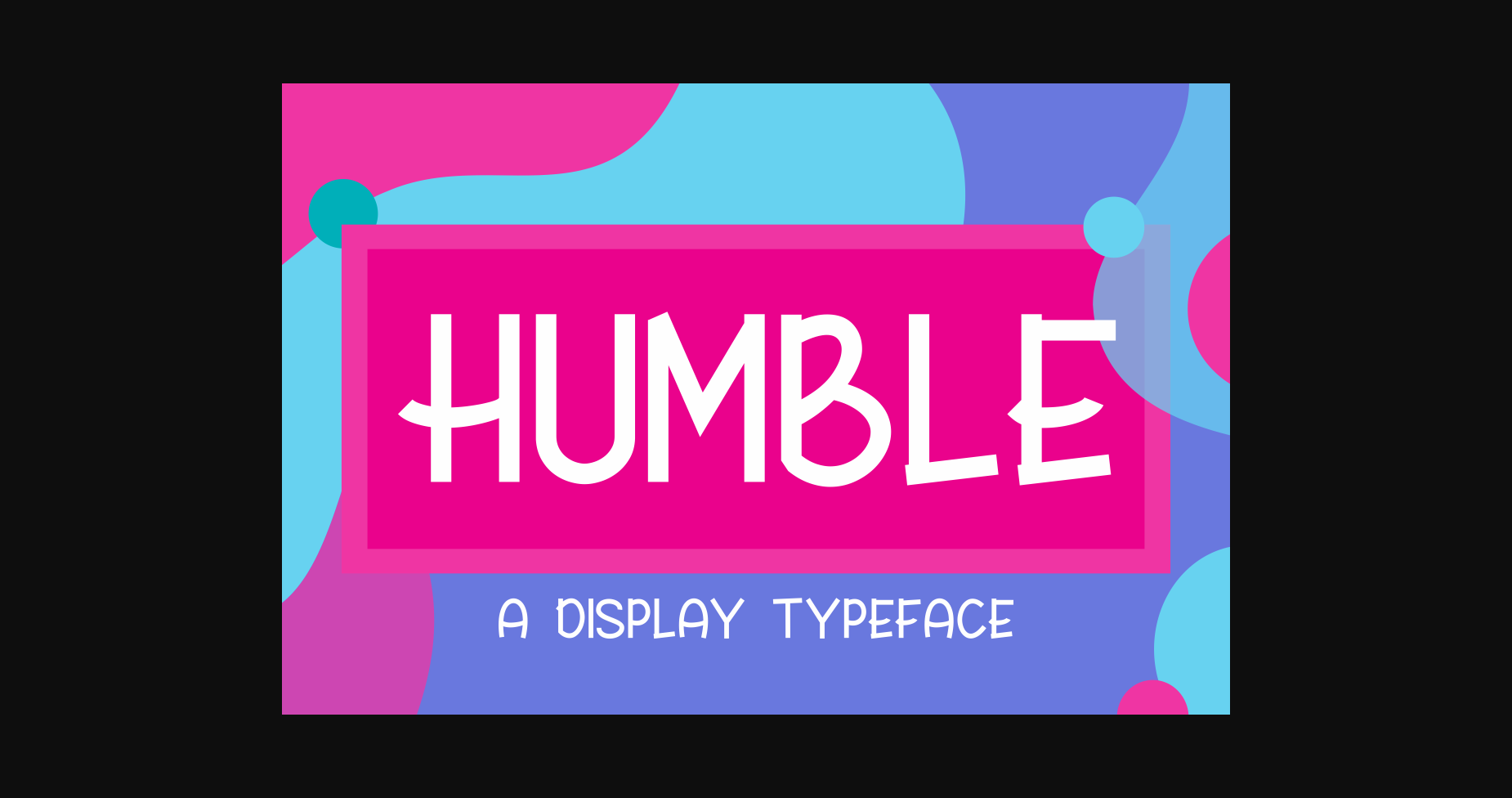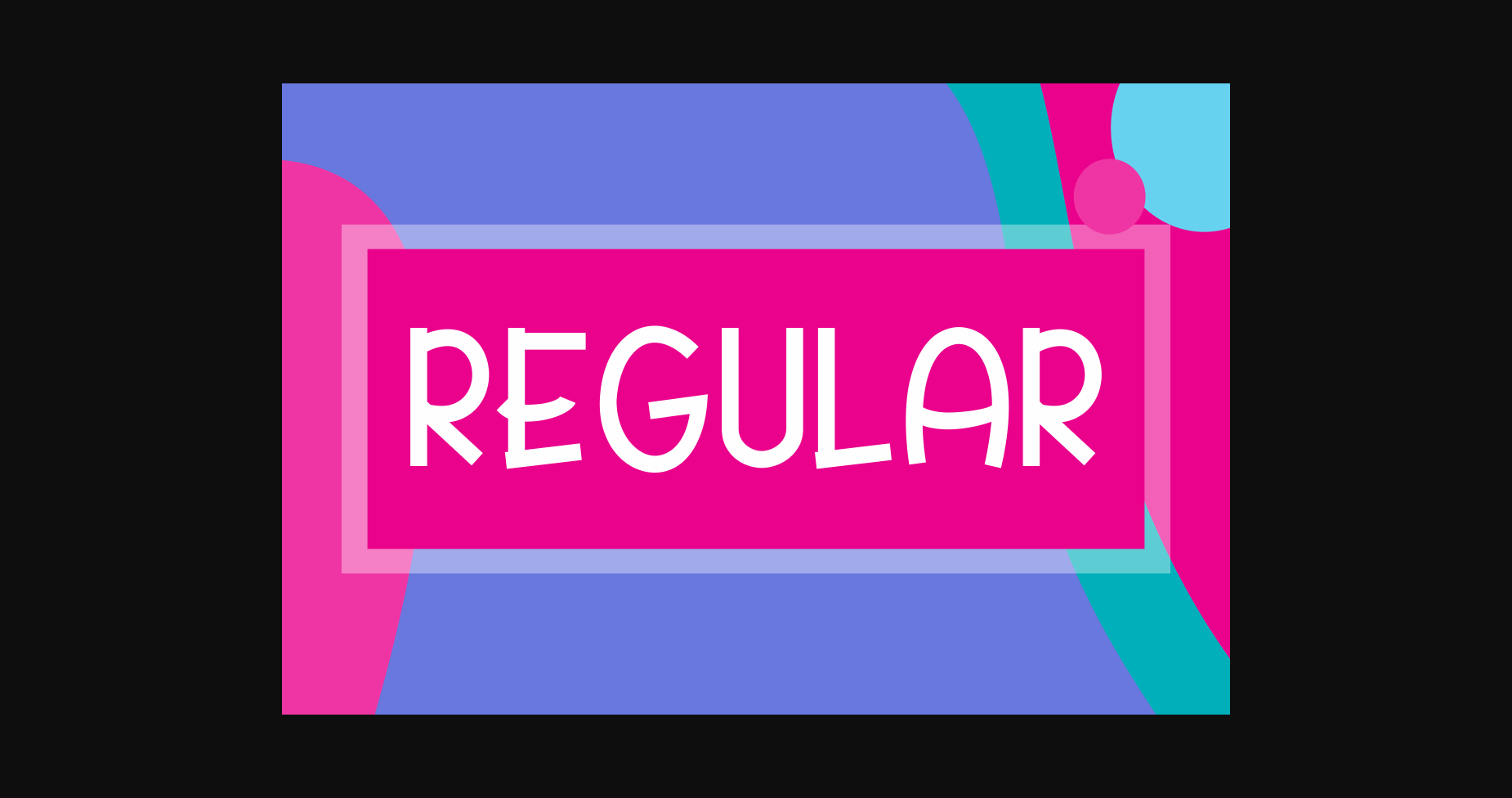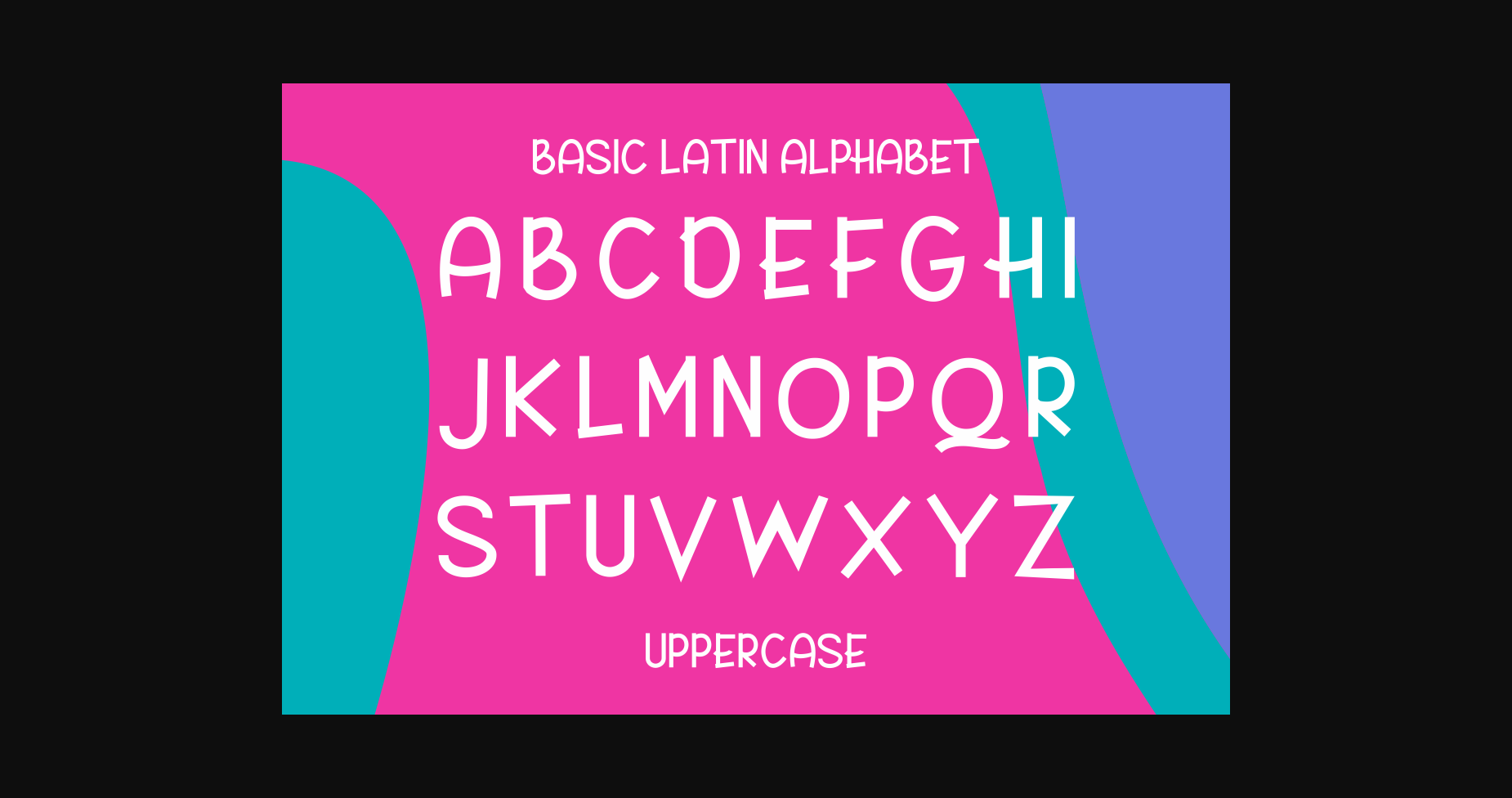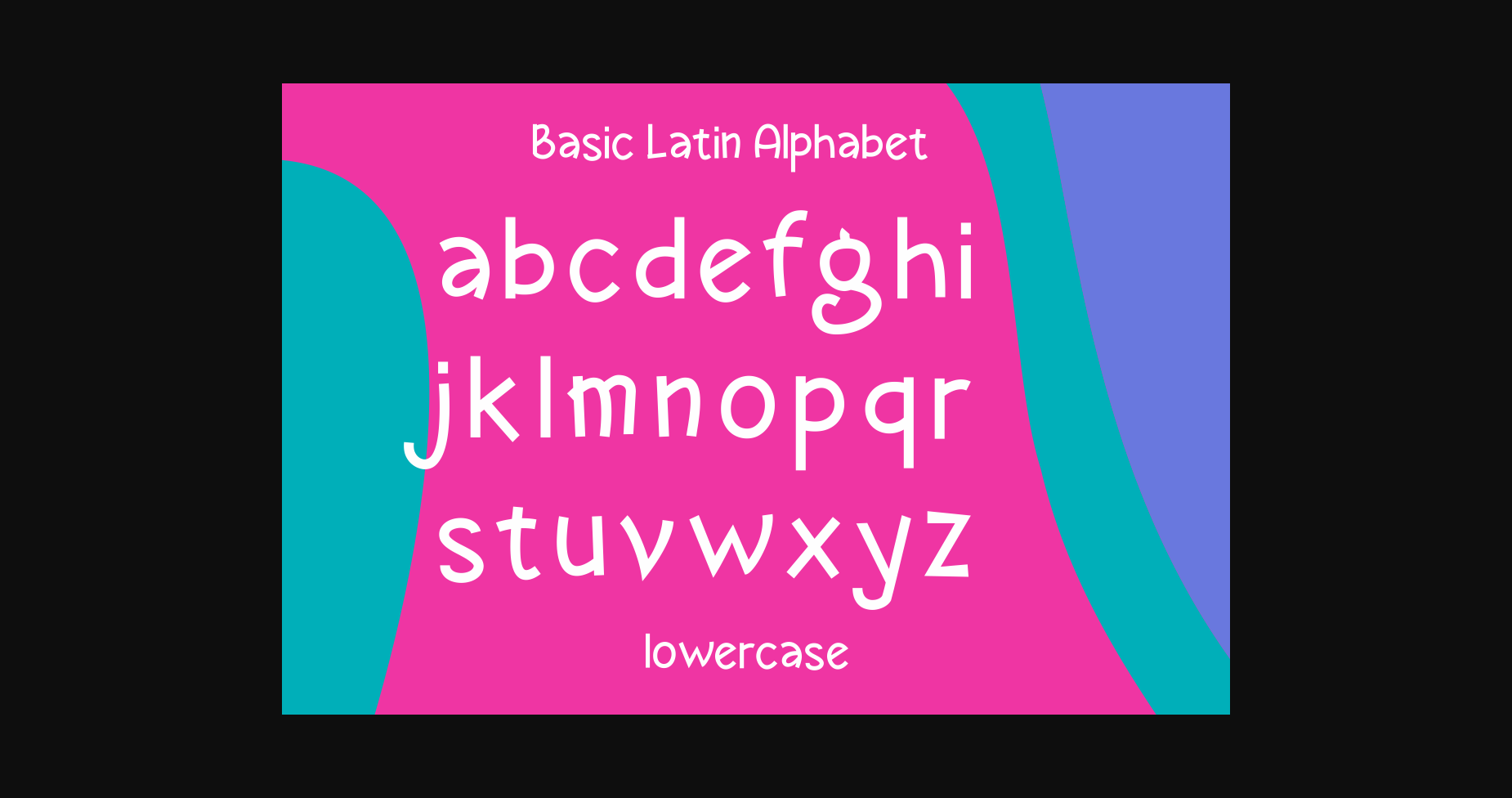
Humble Font
About Humble Font
Humble is a cool and authentic sans-serif font family. It’s a perfect choice for branding, magazines, posters, advertising, packaging, headlines, logos, web, print, etc.